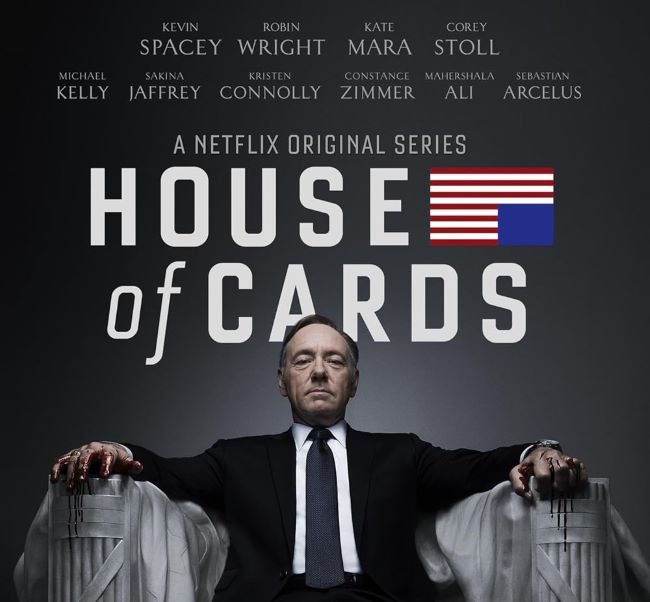
House of Cards font — Bourgeois Bold Condensed for “HOUSE” and “CARDS,” Book Condensed Italic for “of” — deploys a clean, sharp condensed sans-serif with the same calculating precision that Frank Underwood brings to his political manoeuvres in Beau Willimon’s Netflix drama: the typography is authoritative without being warm, confident without being charming, and stripped of any ornamental quality that might suggest the series has any interest in being liked rather than respected. Netflix’s first major original drama series, which premiered in 2013 and established many of the aesthetic conventions that streaming prestige drama has followed since, needed title lettering that communicated Washington power in its most concentrated and least sentimental form. Two alternatives approach this cold political-authority register: Alternative 1 and Alternative 2.